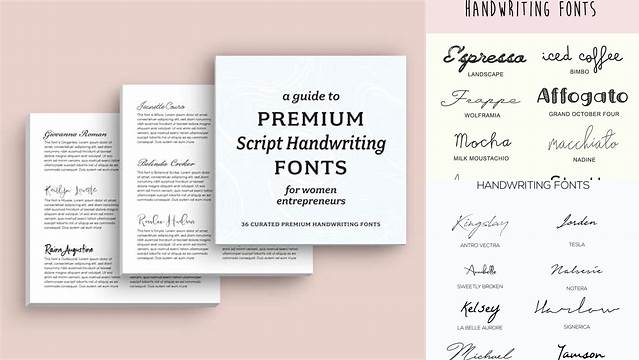
Free Script Handwriting Fonts: Download Now!
Hey guys! Are you looking to add a personal touch to your designs? Or maybe you're just a font enthusiast like me? Well, you've come to the right place! In this article, we're diving deep into the world of free fonts script handwriting. We'll explore everything from where to find them, how to use them, and even some tips for choosing the perfect one for your project. So, grab a coffee, get comfy, and let's get started!
1. What are Free Script Handwriting Fonts?
So, what exactly are free fonts script handwriting? Simply put, these are fonts that mimic the look and feel of actual handwriting, often with a flowing, cursive style. Unlike more rigid or blocky fonts, script handwriting fonts bring a sense of personality and warmth to any design. Think about it: a wedding invitation, a heartfelt greeting card, or even a logo for a bakery – these are all places where a script handwriting font can really shine. But the best part? You can find many of them available for free! Using free fonts script handwriting can make your project unique, adding a distinct and beautiful touch. This also saves a lot of cost without having to pay for expensive licensed fonts. Moreover, selecting the right font can set the mood of the design, whether it is for formal or informal use. When you choose carefully, free fonts script handwriting can effectively communicate the purpose of your design.
2. Why Use Free Script Fonts for Your Projects?
Why should you even bother with free fonts script handwriting? Well, for starters, they add a unique and personal touch to your projects. Imagine using a standard, plain font on a birthday card versus a beautiful, flowing script. The difference is night and day! Script fonts can evoke emotions, set a tone, and make your message feel more authentic. Plus, let's be real, who doesn't love free stuff? You can save a ton of money by using free fonts, especially if you're just starting out or working on a personal project. Besides the cost factor, free fonts script handwriting also gives the designer the freedom to experiment with different styles. This is especially great if you are not sure which font will match best with your project. You can also learn about font pairing to combine various font styles to give a more polished look. In brief, free fonts script handwriting offers a great way to enhance the aesthetic value of your project without breaking the bank.
7. Using Script Fonts in Adobe Photoshop
So, you've got your free fonts script handwriting installed, and you're ready to use them in Adobe Photoshop. Great! To use the font, simply open Photoshop and create a new document or open an existing one. Select the Type tool (the "T" icon) and click on your canvas to create a text layer. In the Character panel (Window > Character), you can choose your newly installed script font from the font dropdown menu. From there, you can adjust the font size, color, and other properties to your liking. Experiment with different script fonts to see which one works best for your design. Also, consider using layer styles like drop shadows or strokes to enhance the look of your text. Remember that the right font can greatly improve the overall aesthetic of your project. Therefore, take your time to explore various options and find the free fonts script handwriting that fits your creative vision.
8. Using Script Fonts in Microsoft Word
Using free fonts script handwriting in Microsoft Word is a breeze. Once you've installed the font on your system, it will automatically appear in Word's font list. Open Word and start a new document or open an existing one. Select the text you want to change or start typing new text. In the Home tab, find the font dropdown menu and select your desired script font. Adjust the font size and other formatting options as needed. Script fonts can be especially effective for headings, invitations, and other decorative elements in your documents. Be careful not to overuse script fonts, as they can be difficult to read in large blocks of text. For body text, it's generally best to stick to more legible fonts like Arial or Times New Roman. However, when used sparingly, free fonts script handwriting can add a touch of elegance and personality to your Word documents.
9. Pairing Script Fonts with Other Fonts
One of the keys to using free fonts script handwriting effectively is to pair them with other fonts that complement their style. Script fonts often look best when paired with simple, sans-serif fonts. For example, you could use a script font for a heading and a sans-serif font for the body text. This creates a nice contrast and makes the text easier to read. Avoid pairing script fonts with other overly decorative fonts, as this can create a cluttered and overwhelming look. Some popular font pairings include script fonts with Open Sans, Montserrat, or Lato. Experiment with different combinations to find what works best for your project. When choosing font pairings, consider the overall tone and message you want to convey. A playful script font might pair well with a modern sans-serif font for a youthful and energetic design. Free fonts script handwriting are a great tool for font pairing experiments that can elevate your design aesthetic.
10. Tips for Choosing the Right Script Font
Choosing the right free fonts script handwriting can be overwhelming, especially with so many options available. Here are a few tips to help you narrow down your choices. First, consider the overall tone and style of your project. Is it formal or informal? Elegant or playful? Choose a script font that matches the overall mood. Second, think about readability. Some script fonts are more legible than others. If your text needs to be easily readable, choose a script font with clear and distinct letterforms. Third, consider the font's weight and thickness. A thin, delicate script font might work well for a wedding invitation, while a bolder script font might be better suited for a logo. Finally, don't be afraid to experiment! Try out different fonts and see what looks best. With these considerations, finding the perfect free fonts script handwriting for your needs will be a breeze.
11. Using Free Script Fonts for Logos
Free fonts script handwriting can be a great choice for creating unique and memorable logos. A script font can give your logo a personal and handcrafted feel, which can be especially appealing for businesses that want to convey a sense of authenticity. However, it's important to choose a script font that is legible and scalable, especially if your logo will be used in a variety of sizes and formats. Avoid overly decorative or complex script fonts, as these can be difficult to read at small sizes. Consider pairing your script font with a simple icon or graphic element to create a balanced and visually appealing logo. Make sure the font reflects your brand personality. Properly used, free fonts script handwriting can make a logo stand out.
12. Free Script Fonts for Wedding Invitations
When it comes to wedding invitations, free fonts script handwriting are a classic choice. A beautiful script font can add a touch of elegance and romance to your invitations, setting the tone for your special day. When choosing a script font for your wedding invitations, consider the overall style of your wedding. Is it formal or informal? Traditional or modern? Choose a script font that complements your wedding's theme. Also, make sure the font is legible and easy to read, especially for important details like the date, time, and location. Pair your script font with a simple, elegant sans-serif font for a balanced and sophisticated look. Remember to keep the color and design of the invite in mind too. Free fonts script handwriting add a personal touch that is perfect for wedding invitations.
13. How to Create Your Own Handwriting Font for Free
Have you ever thought about creating your own free fonts script handwriting? It's easier than you might think! There are several online tools and apps that allow you to create a custom font from your own handwriting. One popular option is Calligraphr, which allows you to download a template, fill it in with your handwriting, and then upload it to create a font file. Another option is Fontself Maker, which is a plugin for Adobe Illustrator and Photoshop that allows you to turn your lettering into a font. Creating your own handwriting font is a fun and creative way to add a personal touch to your designs. You can even share your font with others or sell it online. The possibilities are endless when using free fonts script handwriting and creating your own!
14. Converting Handwriting to Font Online for Free
If you're not quite ready to create a full font from scratch, you can still convert your handwriting to a digital format using online tools. There are several websites that offer free handwriting recognition services. Simply upload an image of your handwriting, and the website will convert it to text. From there, you can copy and paste the text into your documents or designs. While these tools may not be perfect, they can be a quick and easy way to digitize your handwriting. The quality of the conversion depends on the clarity and consistency of your handwriting. Experiment with different tools and techniques to find what works best for you. Free fonts script handwriting are a great way to start experimenting with digital handwriting options.
15. Free Cursive Fonts for Commercial Use
Finding free fonts script handwriting for commercial use can sometimes be a challenge. Many free fonts are only licensed for personal use, meaning you can't use them for projects that generate revenue. However, there are still plenty of free cursive fonts available that are licensed for commercial use. Websites like Google Fonts, FontSpace, and DaFont offer a wide selection of free fonts with commercial licenses. Always be sure to check the license agreement before using any font to ensure that you're allowed to use it for your specific purpose. Using fonts legally will help avoid any issues in the future. With some research, you'll find amazing free fonts script handwriting options for commercial projects.
16. Best Free Calligraphy Fonts
Calligraphy fonts are a type of script font that mimics the elegant strokes of traditional calligraphy. These fonts are perfect for adding a touch of sophistication and refinement to your designs. Some popular free calligraphy fonts include Great Vibes, Dancing Script, and Allura. These fonts feature flowing lines, delicate curves, and intricate details that evoke a sense of timeless beauty. When using calligraphy fonts, be sure to use them sparingly, as they can be difficult to read in large blocks of text. Use them for headers or titles to give your project some added flair. Free fonts script handwriting includes many beautiful calligraphy styles to enhance any design.
17. Elegant Free Script Fonts
For projects that require a touch of sophistication, elegant free fonts script handwriting are the perfect choice. These fonts often feature delicate lines, refined curves, and a sense of timeless beauty. They are ideal for wedding invitations, formal announcements, and other high-end designs. Some popular options include Alex Brush, Windsong, and Honey Script. These fonts exude class and style. When selecting an elegant script font, make sure it is still legible and easy to read, even at smaller sizes. A well-chosen elegant script font can elevate the look and feel of your designs.
18. Modern Free Script Fonts
Not all script fonts are traditional and ornate. There are also plenty of modern free fonts script handwriting that offer a fresh and contemporary twist on the classic script style. These fonts often feature clean lines, simple shapes, and a more minimalist aesthetic. They are perfect for branding, websites, and other modern design projects. Some popular options include Playlist Script, Hello Script, and Sophia Script. These modern fonts give a sense of uniqueness to your project. When using a modern script font, consider pairing it with a bold sans-serif font for a striking and eye-catching contrast.
19. Free Bold Script Fonts
Sometimes, you need a script font that makes a statement. That's where bold free fonts script handwriting come in. These fonts feature thick, strong lines that command attention and convey a sense of confidence. They are ideal for headlines, logos, and other designs that need to stand out. Some popular options include BlackJack, Bebas Neue, and Montserrat Bold Script. These fonts have an extra oomph! When using a bold script font, be sure to use it sparingly, as it can be overwhelming if overused. Use it strategically to draw attention to key elements in your design.
20. Free Light Script Fonts
On the opposite end of the spectrum, there are also light free fonts script handwriting that offer a delicate and airy feel. These fonts feature thin, wispy lines that create a sense of elegance and grace. They are ideal for wedding invitations, feminine designs, and other projects that require a soft and subtle touch. Some popular options include Aguafina Script, Playfair Display Italic, and Raleway Thin Script. These fonts have a gentle appeal. When using a light script font, make sure it is still legible, especially at smaller sizes. Consider using a darker color to improve readability.
21. Free Distressed Script Fonts
If you're looking for a script font with a bit of edge and character, distressed free fonts script handwriting are a great choice. These fonts feature rough textures, worn edges, and other imperfections that give them a vintage or handmade feel. They are ideal for designs that need a touch of authenticity and personality. Some popular options include Amatic SC, Permanent Marker, and Rock Salt Script. These fonts have an authentic look. When using a distressed script font, be mindful of readability. Choose a font that is still legible, even with the added texture.
22. Free Vintage Script Fonts
Vintage free fonts script handwriting evoke a sense of nostalgia and timelessness. These fonts often feature elegant curves, ornate details, and a classic aesthetic that is reminiscent of vintage signage and advertising. They are perfect for designs that need a touch of old-world charm. Some popular options include Lobster, Pacifico, and Grand Hotel Script. These fonts remind you of the past. When using a vintage script font, consider pairing it with other vintage-inspired elements, such as sepia tones and antique illustrations, to create a cohesive and authentic look.
23. Free Brush Script Fonts
Brush script fonts mimic the look of hand-painted lettering created with a brush. These free fonts script handwriting often feature bold strokes, textured edges, and a dynamic, energetic feel. They are ideal for designs that need a touch of creativity and spontaneity. Some popular options include Brush Script MT, Permanent Marker, and Indie Flower Script. These fonts have a hand-made touch. When using a brush script font, experiment with different colors and textures to create a unique and eye-catching design.
24. Free Fun and Playful Script Fonts
For designs that need a lighthearted and whimsical touch, fun and playful free fonts script handwriting are the perfect choice. These fonts often feature quirky shapes, irregular lines, and a sense of joy and enthusiasm. They are ideal for children's designs, birthday cards, and other projects that need a touch of silliness. Some popular options include Comic Sans MS, Marker Felt, and Schoolbell Script. These fonts add humor and playfulness. When using a fun and playful script font, don't be afraid to experiment with bright colors and playful illustrations to create a truly memorable design.
25. Free Retro Script Fonts
Retro free fonts script handwriting are inspired by the design trends of the past, particularly the mid-20th century. These fonts often feature bold shapes, rounded corners, and a sense of optimism and energy. They are ideal for designs that need a touch of nostalgia and vintage flair. Some popular options include Lobster Two, Bumbastika, and Streetwear Script. These fonts remind you of a different era. When using a retro script font, consider pairing it with other retro-inspired elements, such as geometric patterns and pastel colors, to create a cohesive and authentic look.
26. Free Handwritten Style Fonts
Handwritten style free fonts script handwriting are designed to mimic the look of natural handwriting. These fonts often feature irregular lines, varying stroke weights, and a personal, intimate feel. They are ideal for designs that need a touch of authenticity and human connection. Some popular options include Journal, Coming Soon, and Patrick Hand Script. These fonts feel personal and genuine. When using a handwritten style font, be sure to choose one that is legible and easy to read, especially for longer blocks of text.
27. Free Cursive Fonts for Personal Use
Many free fonts script handwriting are available for personal use, which means you can use them for non-commercial projects like invitations, cards, and personal designs. Websites like DaFont and FontSpace offer a huge selection of personal use fonts. Always check the license before using any font. Choose a font that expresses your style for your projects. With so many options available for free fonts script handwriting, your personal projects will be outstanding!
28. Best Practices for Using Free Fonts
When using free fonts script handwriting, following best practices ensures your projects look professional and polished. Always check the font license. Pair script fonts with simpler fonts. Ensure readability by choosing fonts with clear letterforms. Use fonts sparingly to avoid overwhelming the design. Test fonts on different devices and browsers. By adhering to these practices, free fonts script handwriting will enhance your projects.
29. Troubleshooting Font Issues
Sometimes, using free fonts script handwriting can lead to technical issues. If a font doesn't display correctly, first, ensure it's properly installed. Restart your computer or application. Clear font caches. Check for font conflicts. Update your operating system. If problems persist, consider contacting the font creator or seeking help from online forums. These steps should help resolve common font issues for free fonts script handwriting.
30. Future Trends in Script Fonts
The world of free fonts script handwriting is constantly evolving. Future trends include more variable fonts, which allow for greater customization, and AI-generated fonts that adapt to specific design needs. Expect to see more fonts with unique textures, animations, and interactive features. Staying updated with these trends keeps your designs fresh and innovative. Exploring free fonts script handwriting keeps you ahead of the design curve.